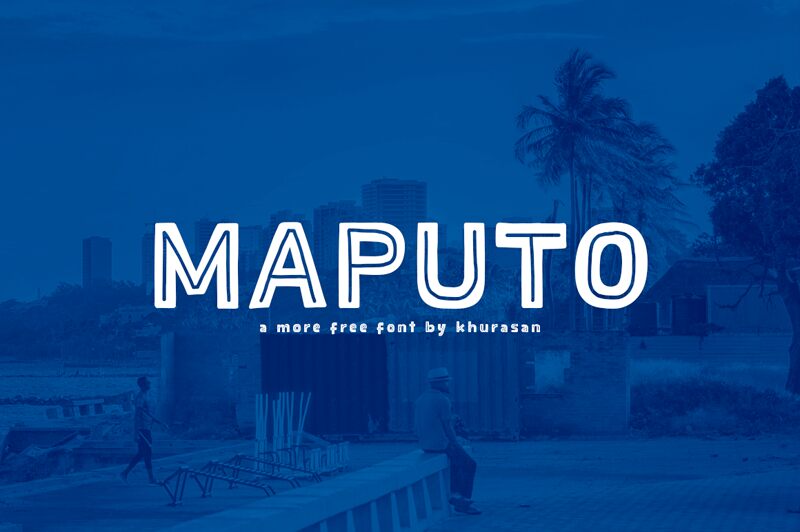
Maputo, designed by Khurasan, is a captivating display font that adds a touch of whimsy to any project.
With its bold weight and semi-expanded width, this outlined comic typeface is perfect for eye-catching headlines and attention-grabbing logos. Whether you're designing a children's book cover or creating playful social media graphics, Maputo brings a sense of fun and excitement to your designs.
Let your imagination run wild and infuse your projects with the vibrant charm of Maputo.